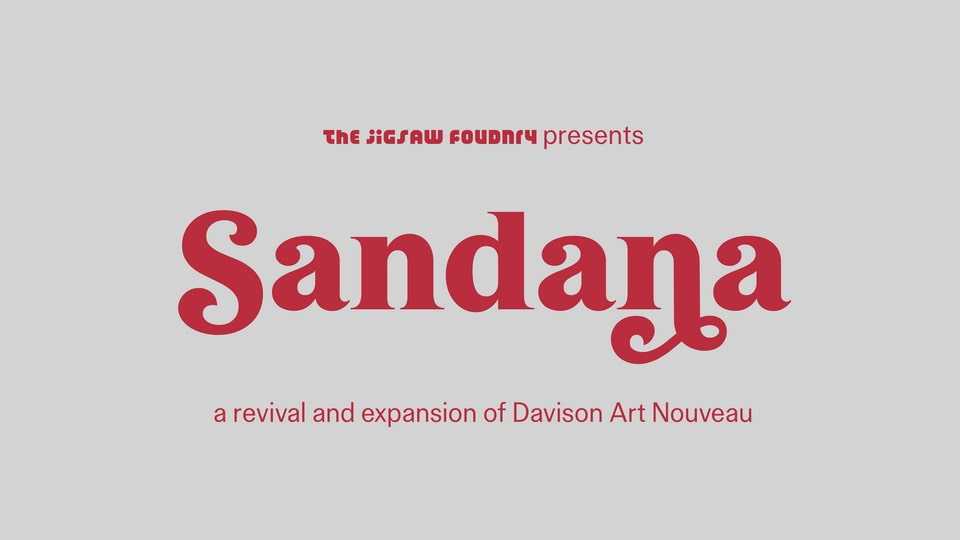
Download TJF Sandana font, a decorative serif typeface, a revival and expansion Davison Art Nouveau, which was designed for the typography of the DUNE book covers written by Frank Herbert.
Designer: The Jigsaw Foundry